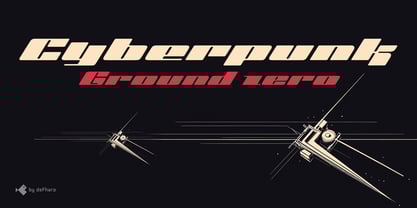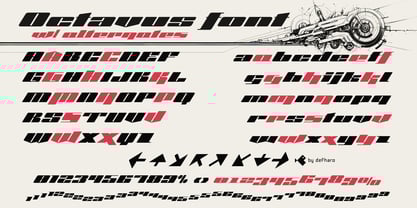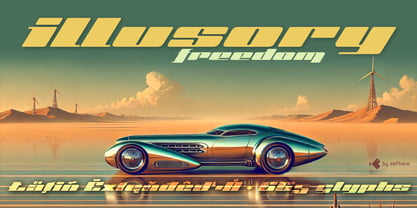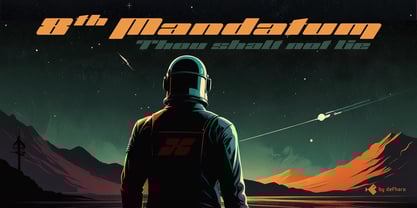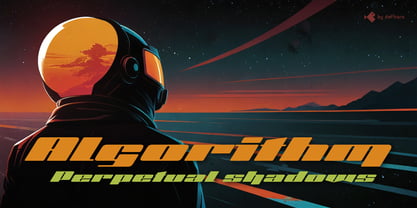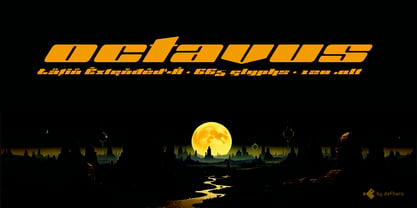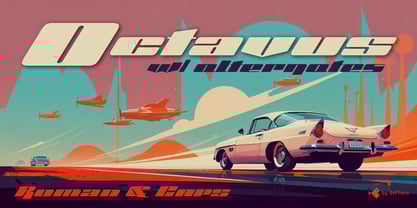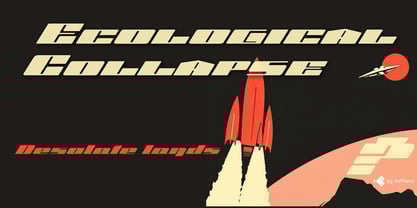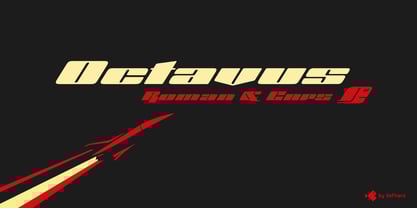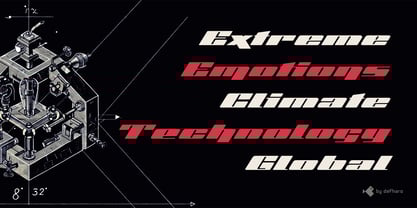
Octavus Slanted
by deFharo
The Octavus Slanted Font Family was designed by Fernando Haro and published by deFharo. Octavus Slanted contains 2 styles and family package options.
Octavus is a retro-futuristic, technological, expanded and slanted typeface, with a 32-degree slant that gives it an unmistakable dynamism and bold minimalism.
This is a robust and bold typeface family, available in two versions: Roman and Capitals. Its expanded proportion and black weight give it an unmistakable personality that delves into bold minimalism.
The 32-degree slant gives it a uniquely dynamic feel; its aesthetic fuses the present and the distant future, and will undoubtedly transport you to impossible universes. It is thick, bold, and modern, with a dramatic contrast between its horizontal and vertical stems. Each letter, with a rounded finish and steep slant, creates an incredibly dynamic and technological visual context with vintage connotations.